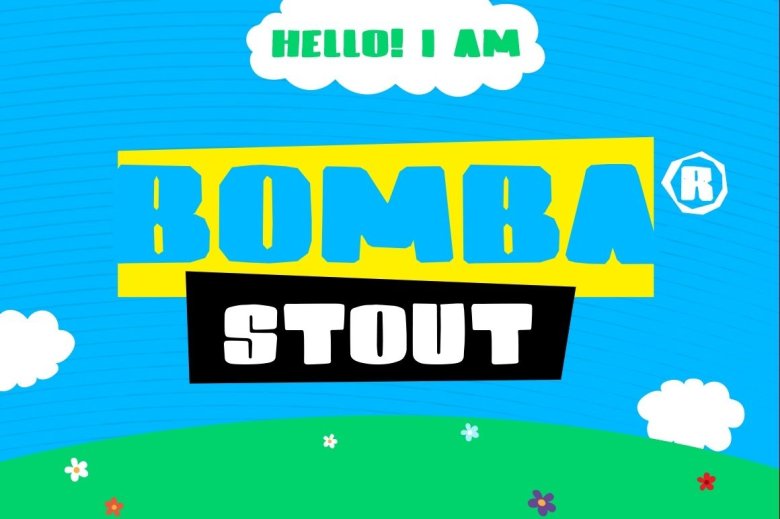
Bomba Stout Font
A new Display font. This is a typewriter with bold, fun, and fun styles that will appeal to children’s designs, such as comic books and children’s books… Introducing Bomba Stout Font! Bomba Stout designed and shared by Fhumulani Nemulodi. Bomba Stout is a light hearted two style handmade typeface that is bulky, stout and playful. Bomba is perfect for use in designs intended for children and other playful visual communication pieces. It works well for impactful headlines and small bites of body copy. The typeface comes in two styles, Bomba Stout smooth (with smooth rounded edges) and Bomba Stout Buff (with strong and angular edges).